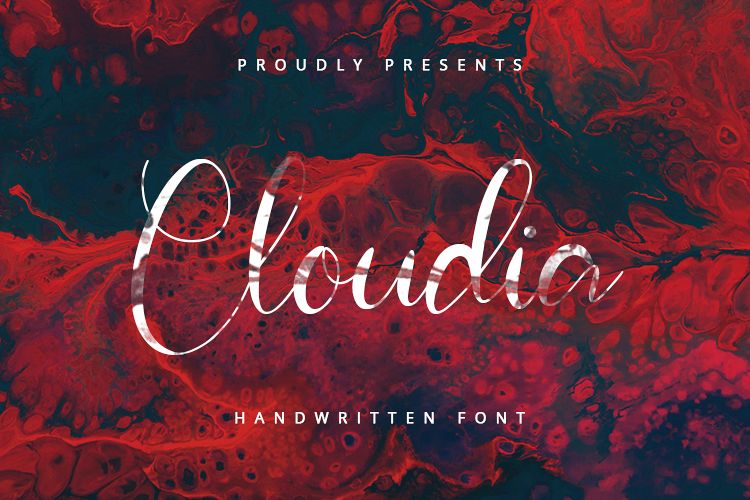
Cloudia - Handwritten Font
Cloudia is handwritten font. Cloudia can be used for all your project needs. This font can be used at any time and any project, such as poster, quotes, wedding design, etc.
Cloudia - Handwritten Font